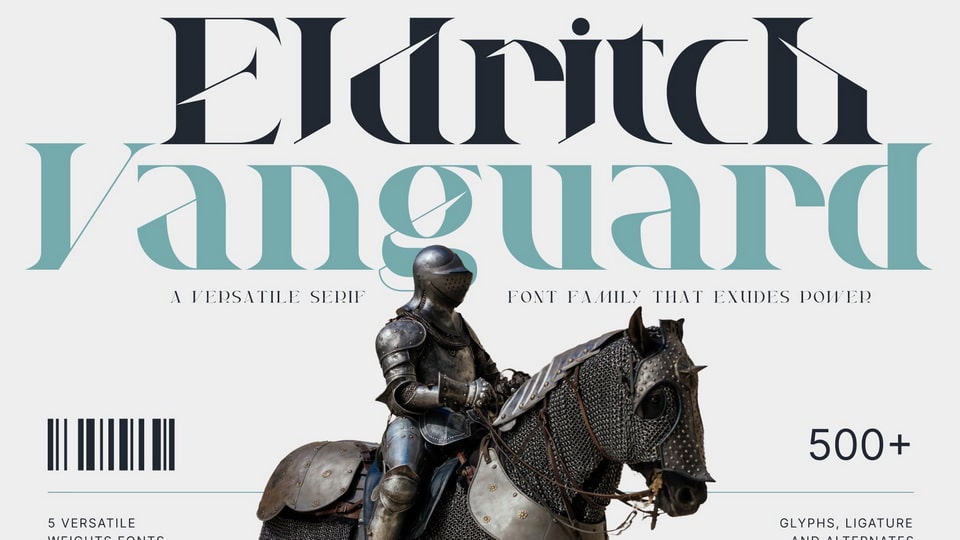
Download Eldritch Vanguard font, a versatile serif typeface that exudes power and mystery. This font is perfect for creating striking designs that command attention.
Designer: Helotype